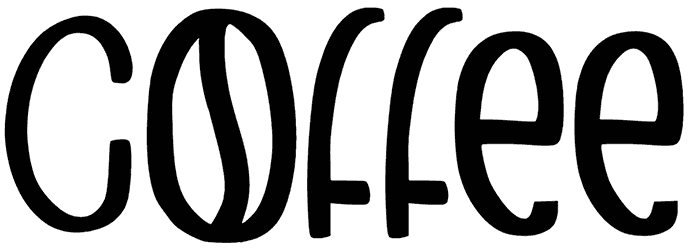
Coffee Font
Do you want to depict the cozy interior or the high quality of your coffee shop in its logo design? Then Coffee is for you. This script font can convey the right message to the audience about how the viewer should feel about your design and project, with the theme of a cafe.
The hand-made characters of this coffee font with their cute curves, which don’t include numbers and lowercase letters, make your message clear and call them from afar.https://resourceboy.com/fonts/coffee/coff